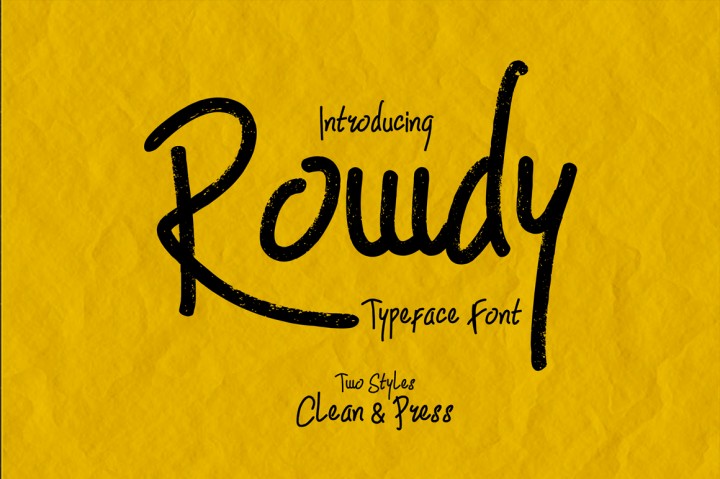
Introducing Rowdy Font: A Modern Handwritten Marker Font
The world of typography has witnessed a significant transformation over the years, with the emergence of various font styles and designs. One such font that has gained popularity among designers and artists is the Rowdy font. Created by the madeDeduk foundry, Rowdy is a modern handwritten marker font that has taken the design community by storm. In this article, we’ll delve into the world of Rowdy font, exploring its features, benefits, and uses.
What is Rowdy Font?
Rowdy is a modern handwritten marker font designed by the madeDeduk foundry. It is a unique and creative font that mimics the look of handwritten text using a marker pen. The font features bold, expressive lines and a playful feel, making it perfect for a variety of design projects.
Benefits of Using Rowdy Font
So, why should you use Rowdy font in your design projects? Here are some benefits that make it a popular choice among designers:
- Unique and Creative: Rowdy font offers a fresh and unique look that can add a creative touch to your designs.
- Expressive Lines: The font features bold, expressive lines that give it a handmade feel.
- Playful Feel: Rowdy font has a playful feel that makes it perfect for designs that require a friendly and approachable tone.
- Versatile: The font can be used in a variety of design projects, from posters and flyers to digital media and branding.
Uses of Rowdy Font
Rowdy font can be used in a wide range of design projects, including:
- Posters and Flyers: The font’s bold and playful feel makes it perfect for creating eye-catching posters and flyers.
- Branding and Logo Design: Rowdy font can be used to create unique and memorable logos and brand identities.
- Digital Media: The font can be used in digital media, such as social media graphics, blog posts, and website headers.
- Packaging Design: Rowdy font can be used in packaging design to add a creative and playful touch.
Fonts Similar to Rowdy
If you like Rowdy font, you might also like these similar fonts:
- Marker Font: A handwritten marker font with a similar feel to Rowdy.
- Handwritten Font: A playful handwritten font with a similar playful feel.
- Brush Font: A brush script font with a similar creative and artistic feel.
Pairing Rowdy Font with Other Fonts
Pairing Rowdy font with other fonts can create a unique and visually appealing design. Here are some font pairing suggestions:
- Open Sans: A clean and modern sans-serif font that pairs well with Rowdy’s playful feel.
- Lato: A sleek and modern sans-serif font that complements Rowdy’s bold lines.
- Merriweather: A classic serif font that pairs well with Rowdy’s playful and creative feel.
In conclusion, Rowdy font is a modern handwritten marker font that offers a unique and creative look for design projects. Its bold, expressive lines and playful feel make it perfect for a variety of designs, from posters and flyers to branding and digital media. With its versatility and ease of use, Rowdy font is a great addition to any designer’s font library.